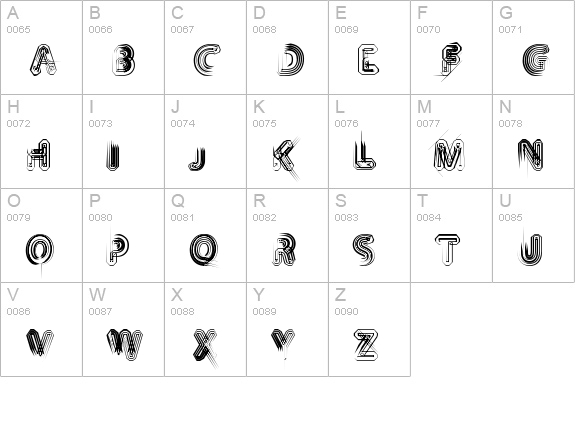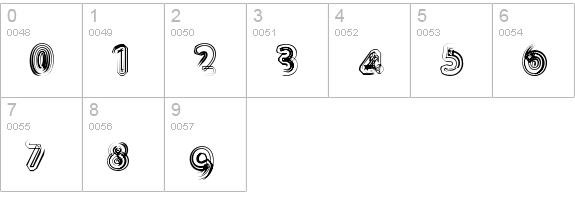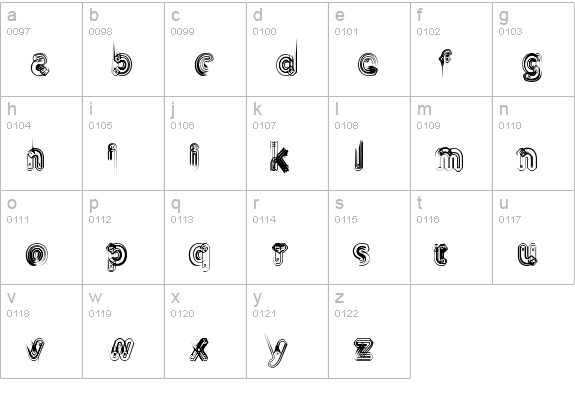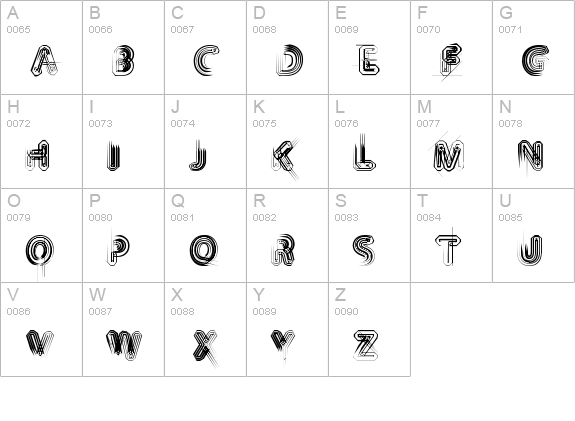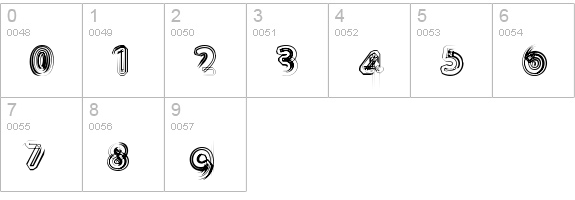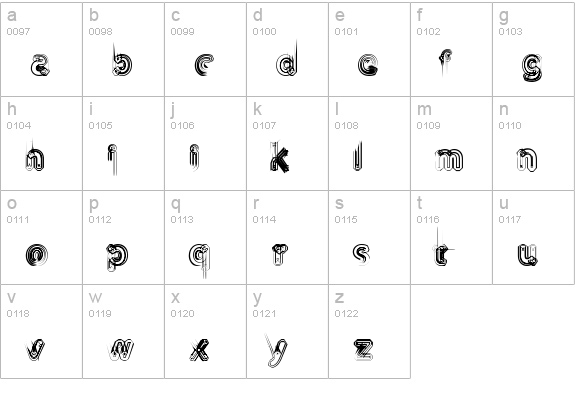
Introducing TH3 MACHINE font, an extraordinary typeface that combines sleekness with a touch of futuristic charm. This font is the perfect choice for those seeking a modern and edgy look in their designs. TH3 MACHINE font boasts a unique blend of bold, sharp lines and intricate details, giving your text a distinct and captivating appearance. Its carefully crafted letterforms exude confidence and sophistication, making it a versatile addition to any project. What sets TH3 MACHINE font apart is its availability as a free download at FontsMarket.com. This means that you can easily obtain this remarkable font without any cost, enabling you to take your designs to the next level without breaking the bank. Whether you're working on a logo, website, poster, or any other creative endeavor, TH3 MACHINE font will undoubtedly elevate your design to new heights. Its versatility allows it to shine in both headlines and body text, making it an excellent choice for various applications. With TH3 MACHINE font, you can unleash your creativity and make a bold statement. Its modern aesthetic and attention-grabbing appeal will ensure that your message is delivered with impact and style. Don't miss out on this incredible font – download TH3 MACHINE font for free at FontsMarket.com and experience the power of exceptional typography.